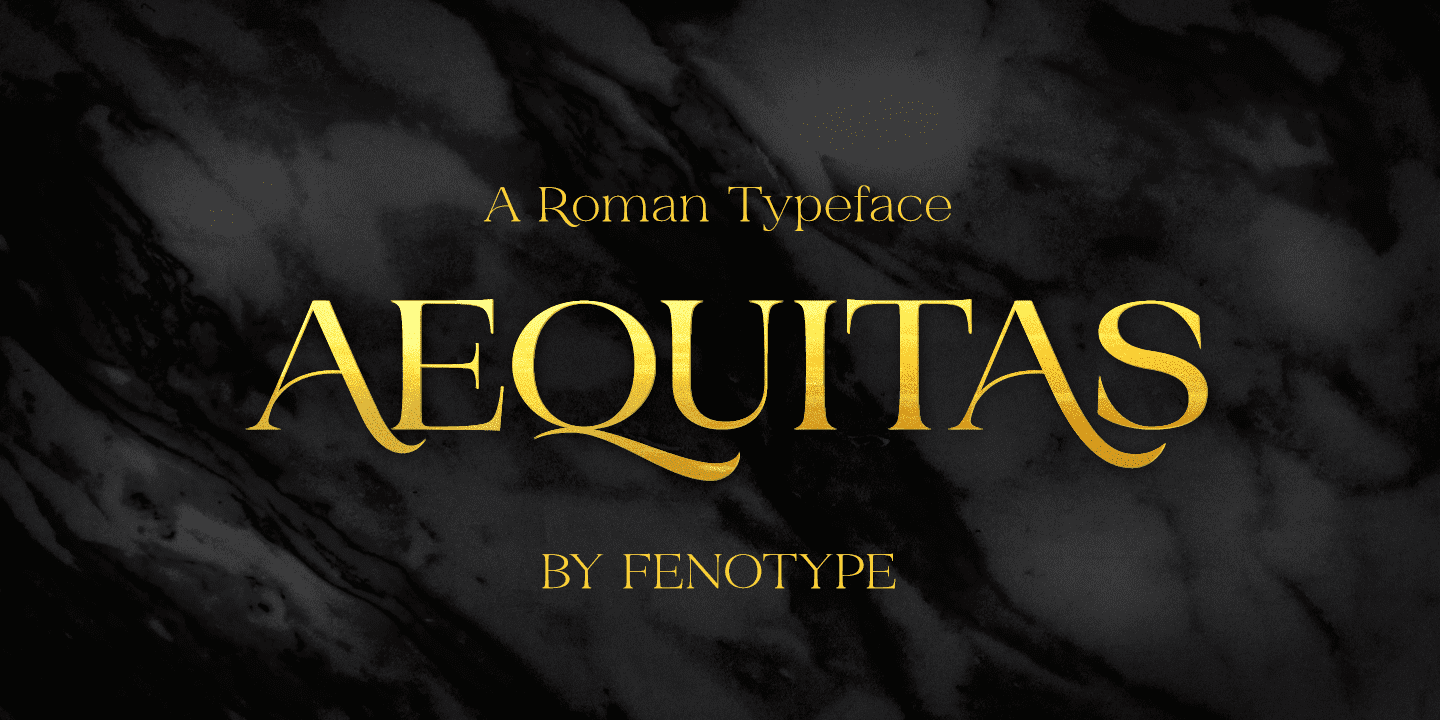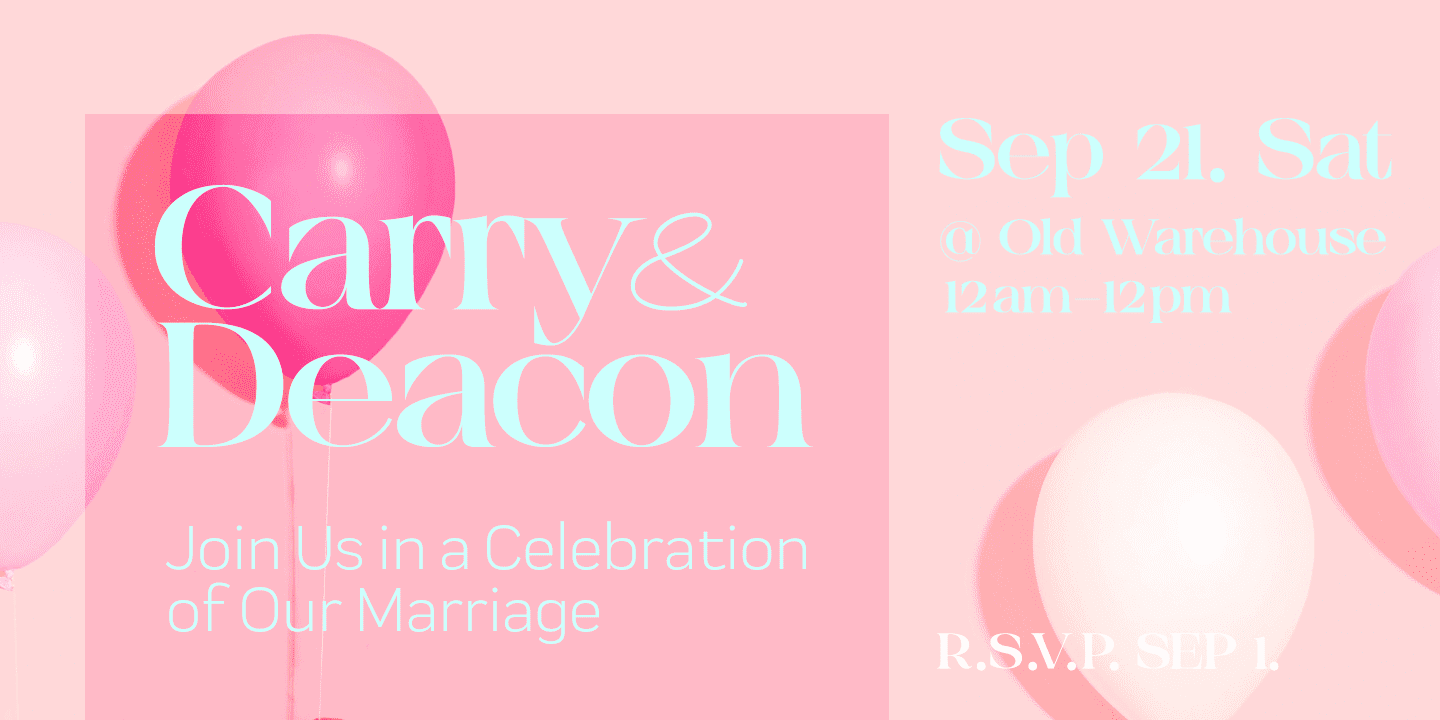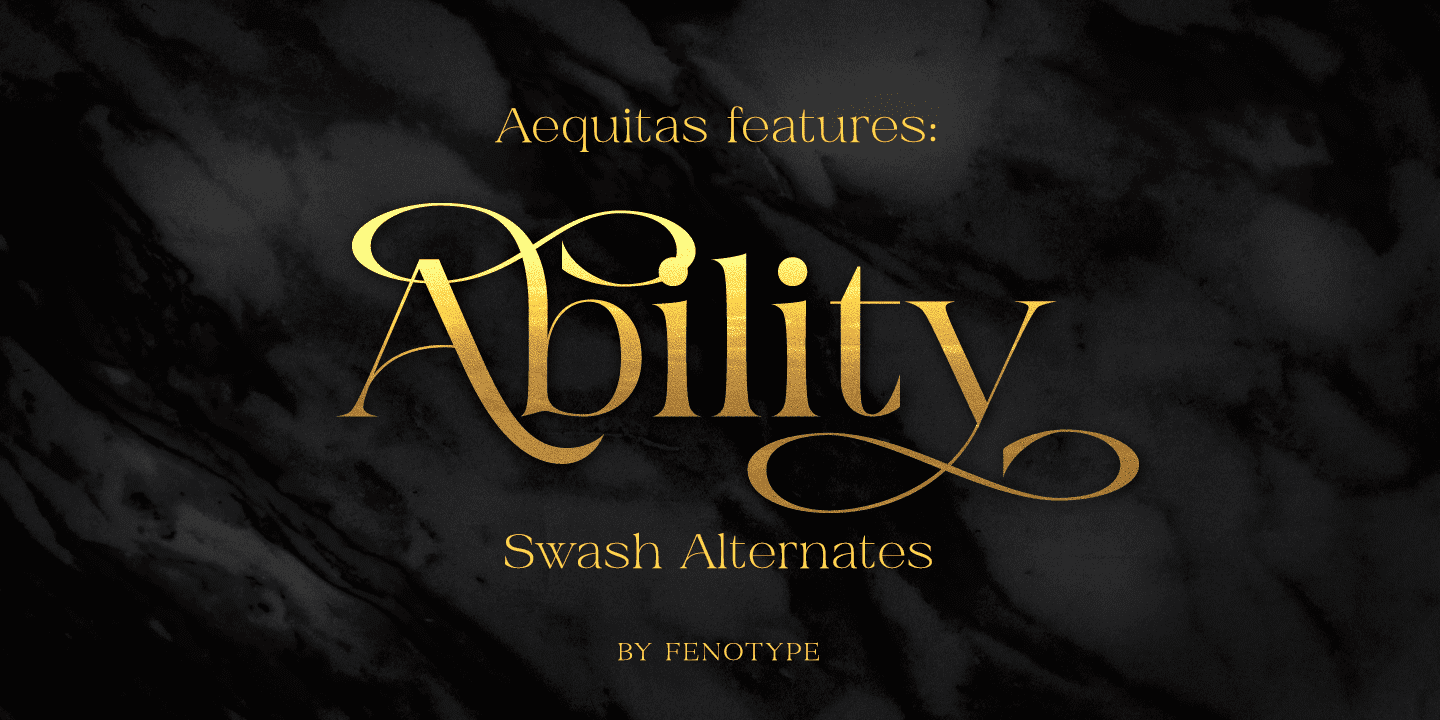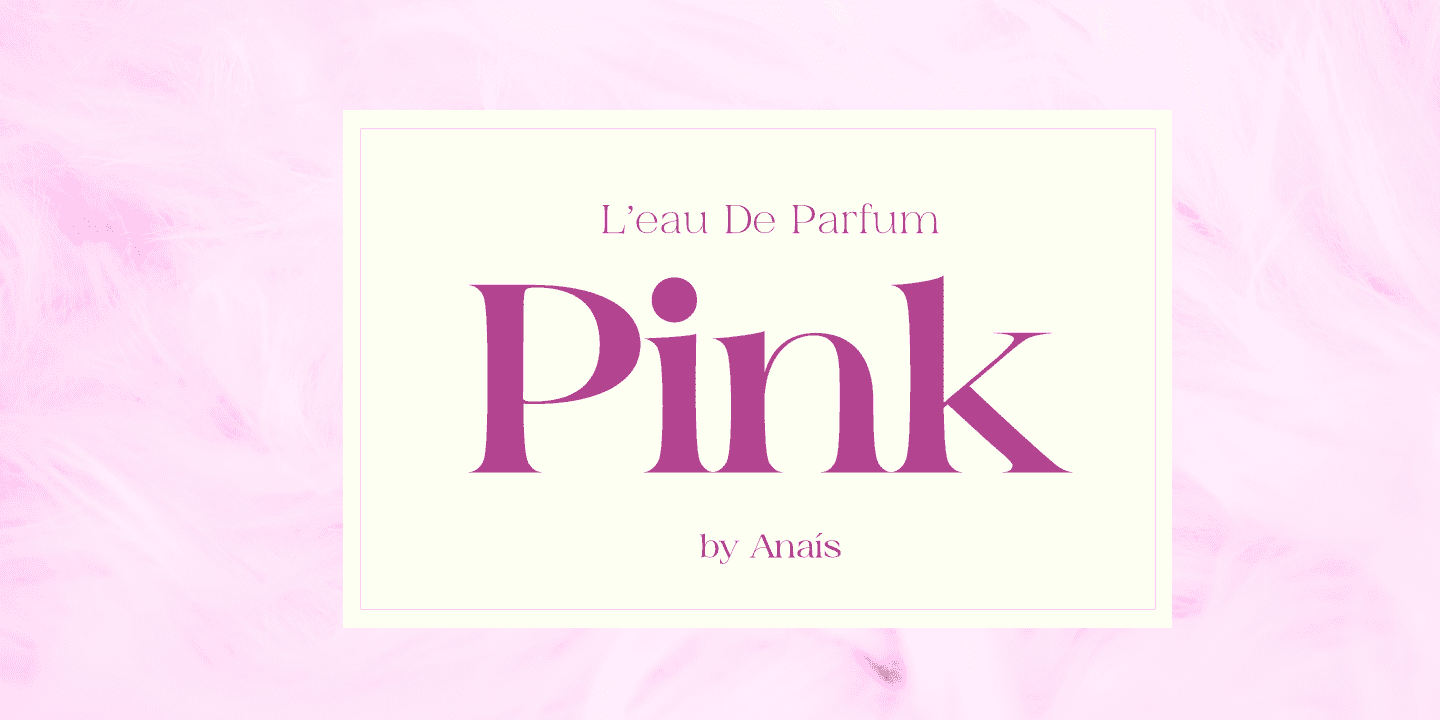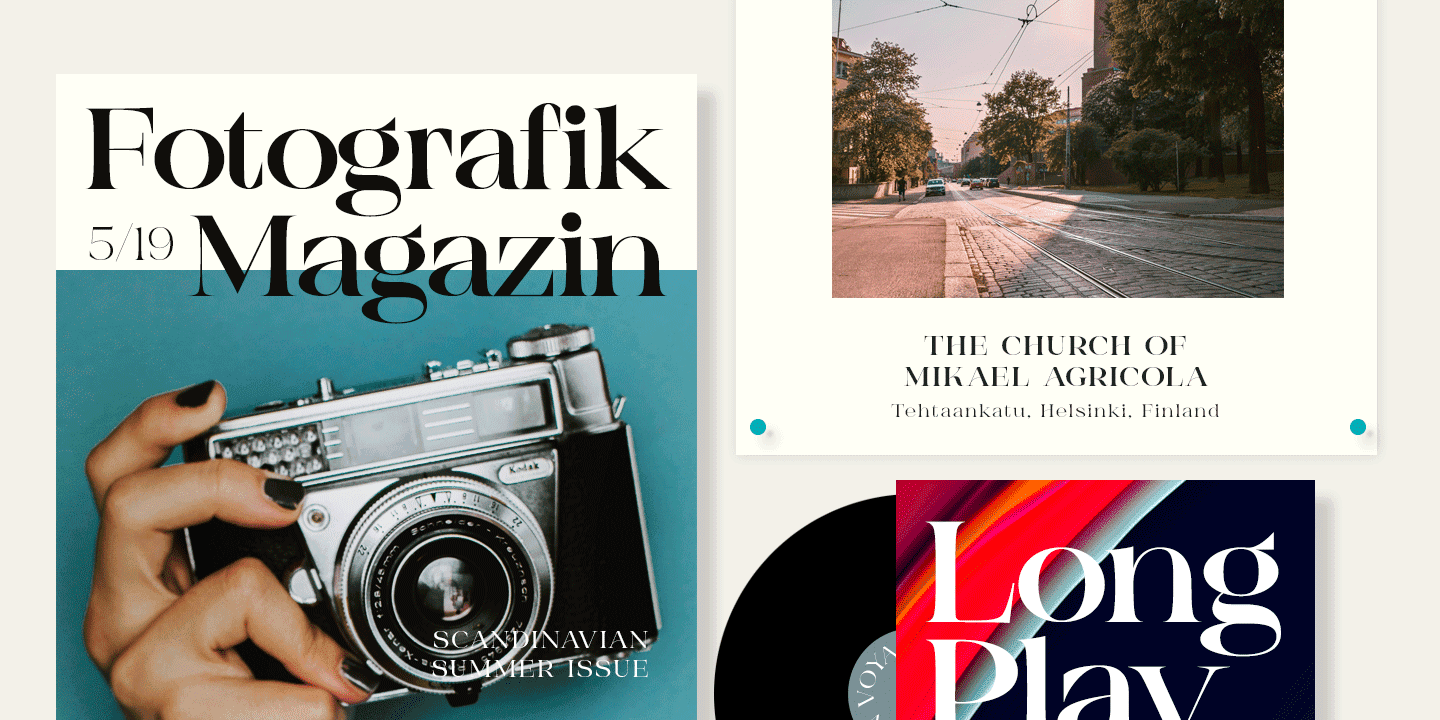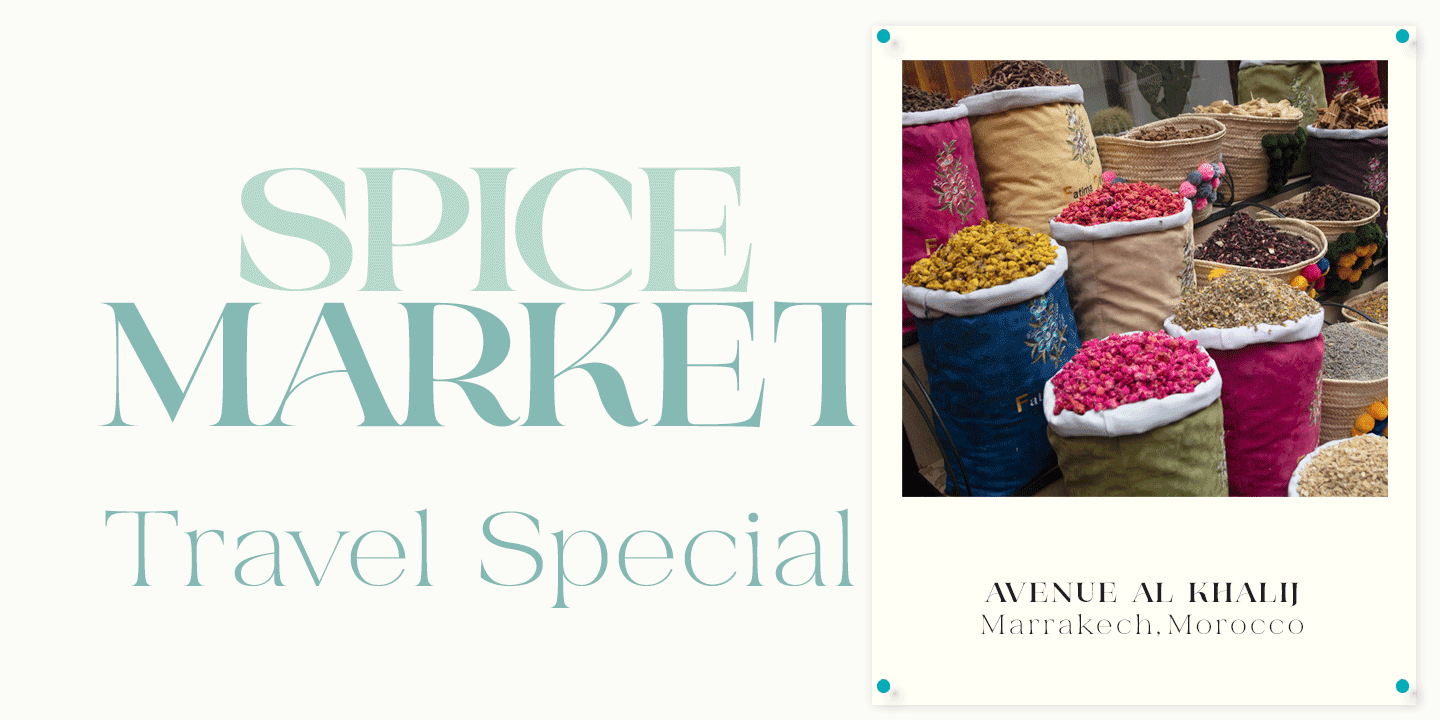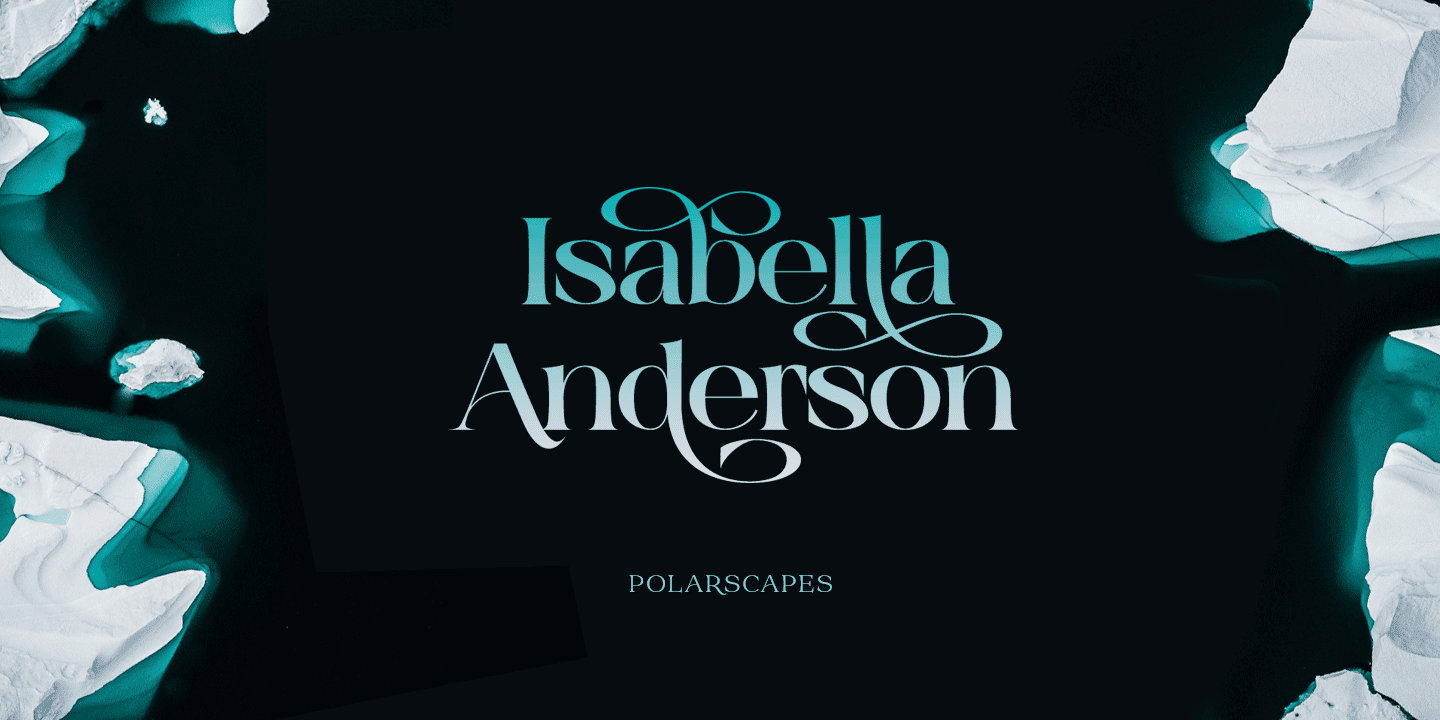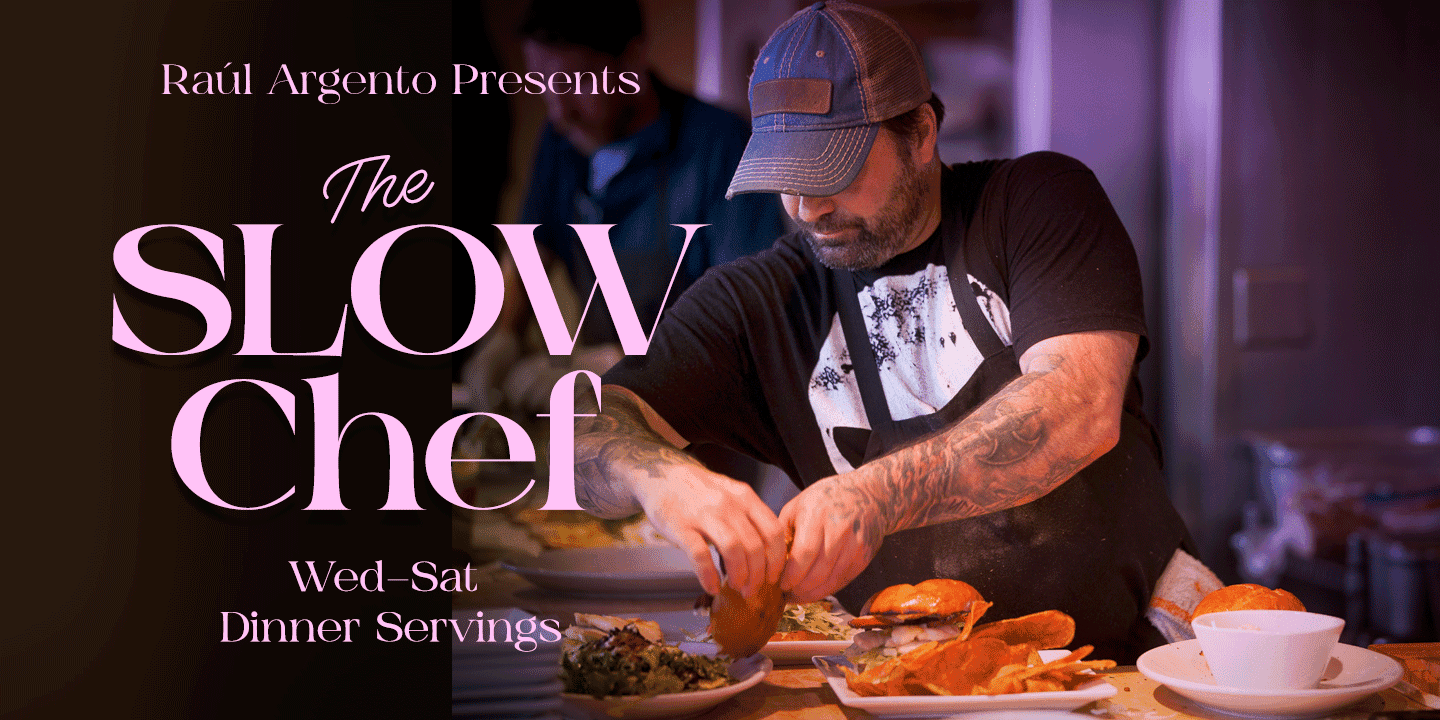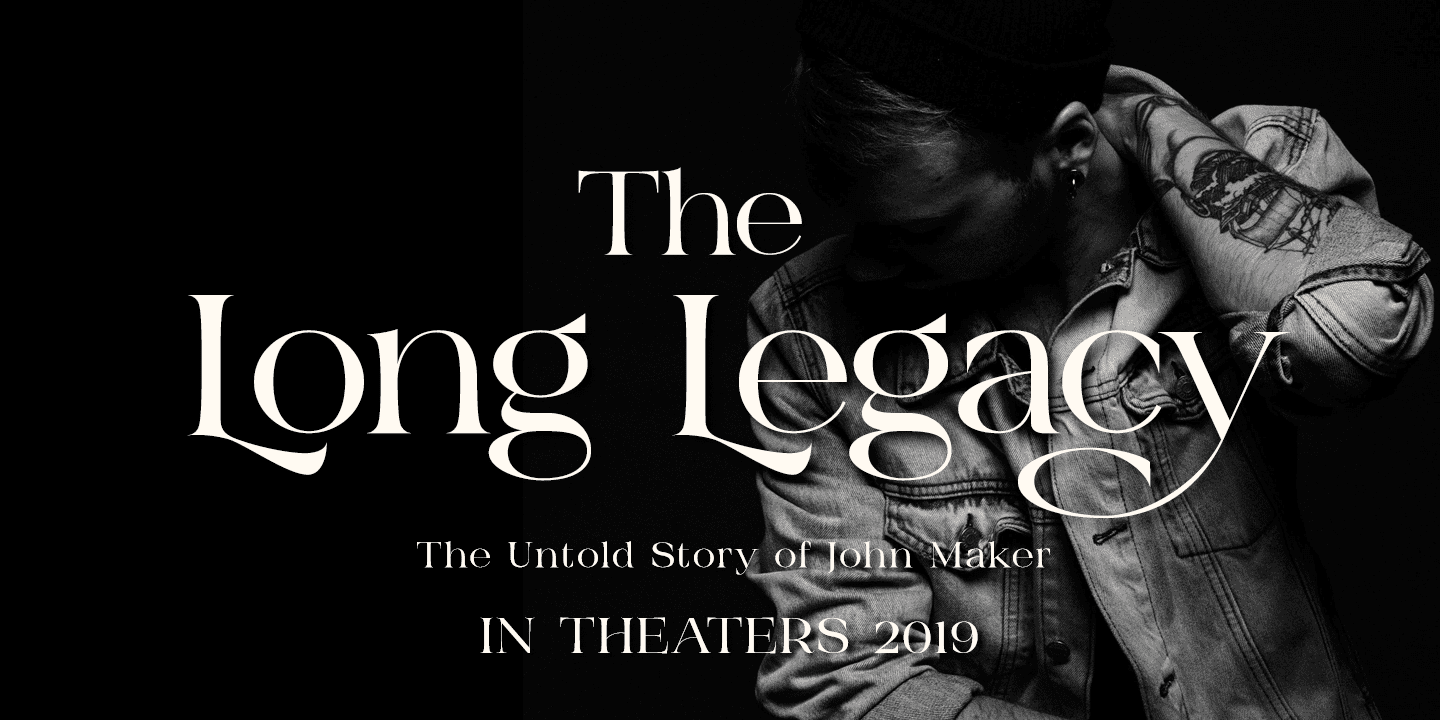
Aequitas Family (3 fonts)
Aequitas is great for fashion, branding, packaging or editorial use.
Each weight of Aequitas is equipped with Swash & Titling Alternates.